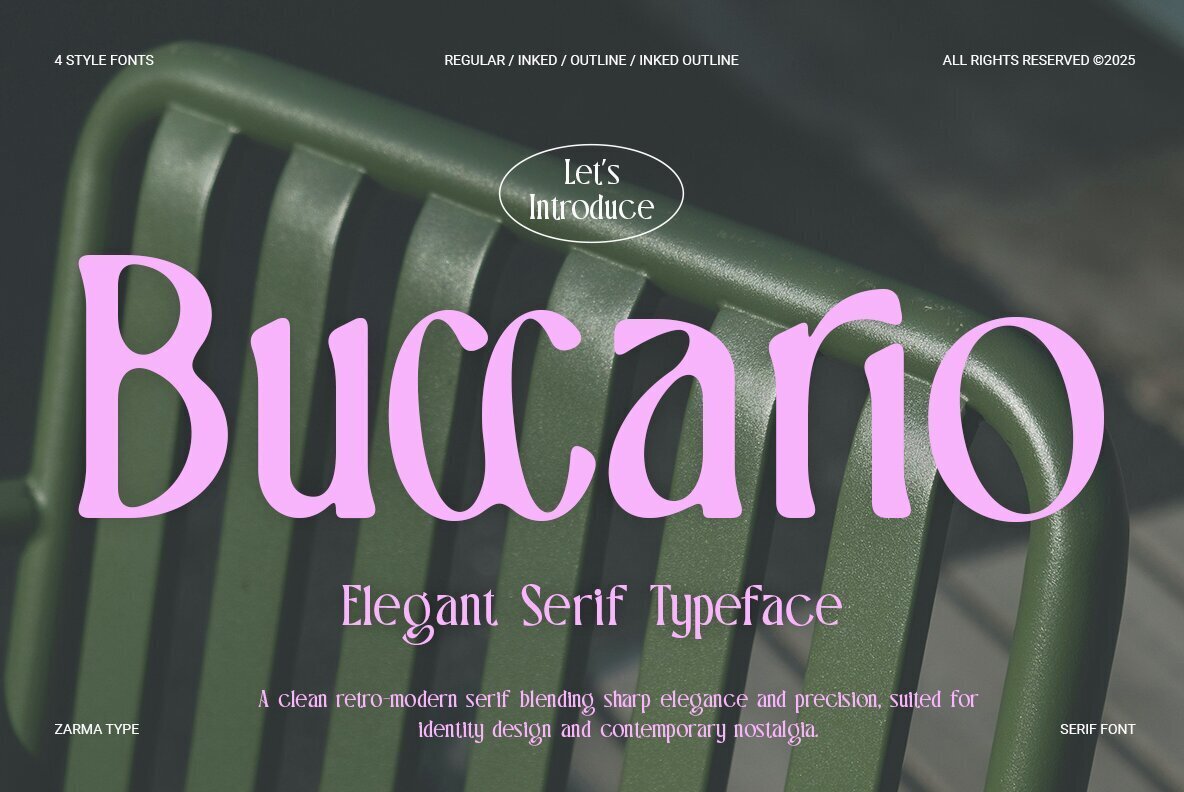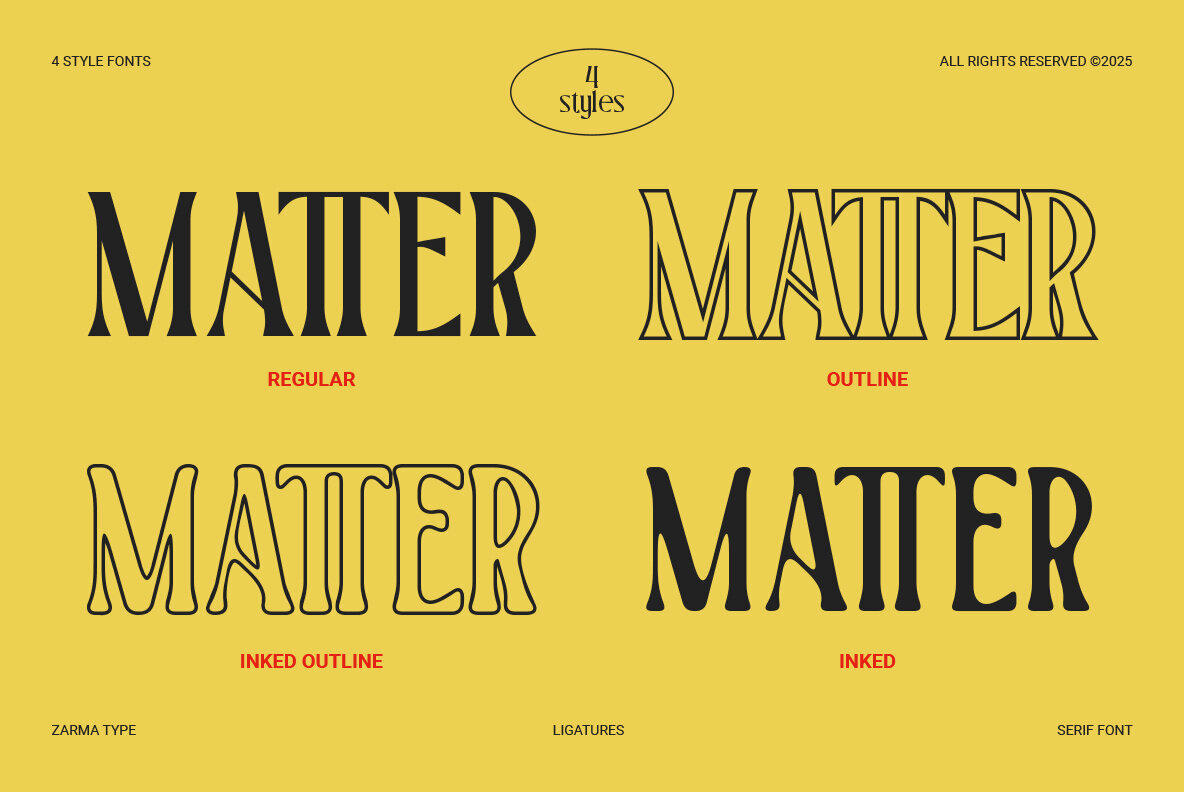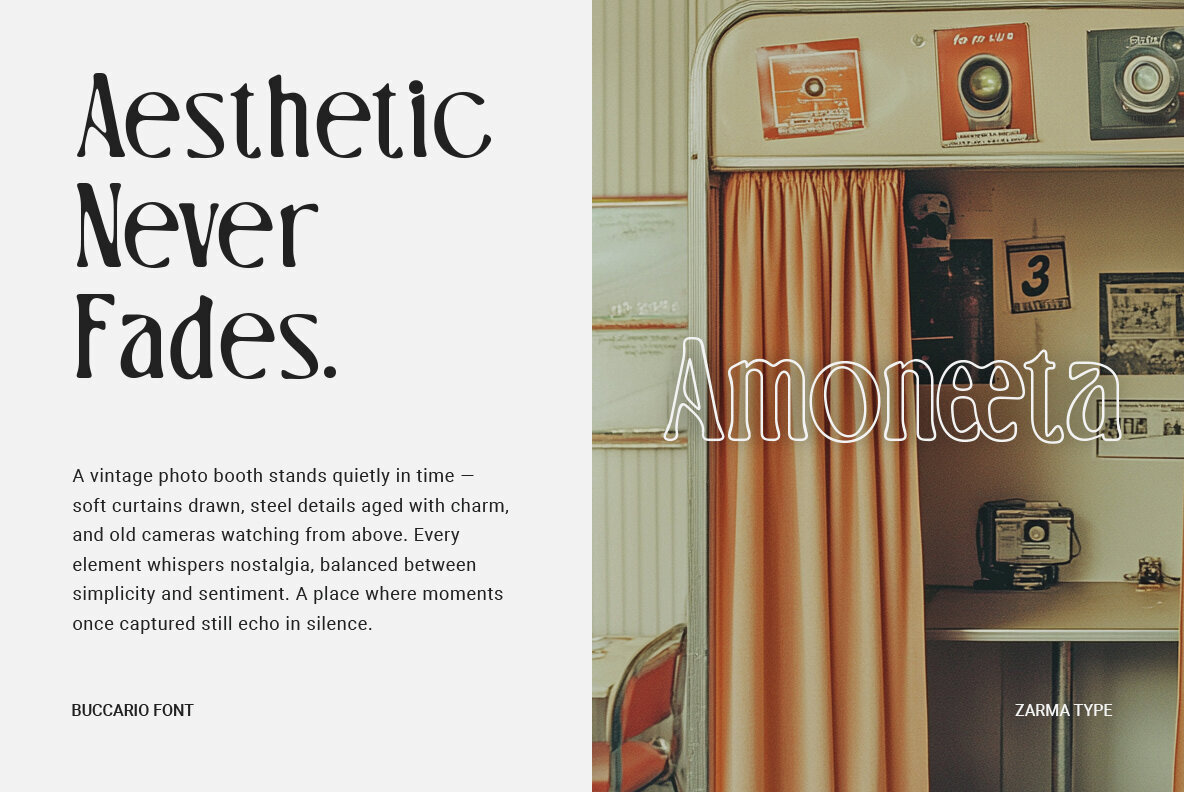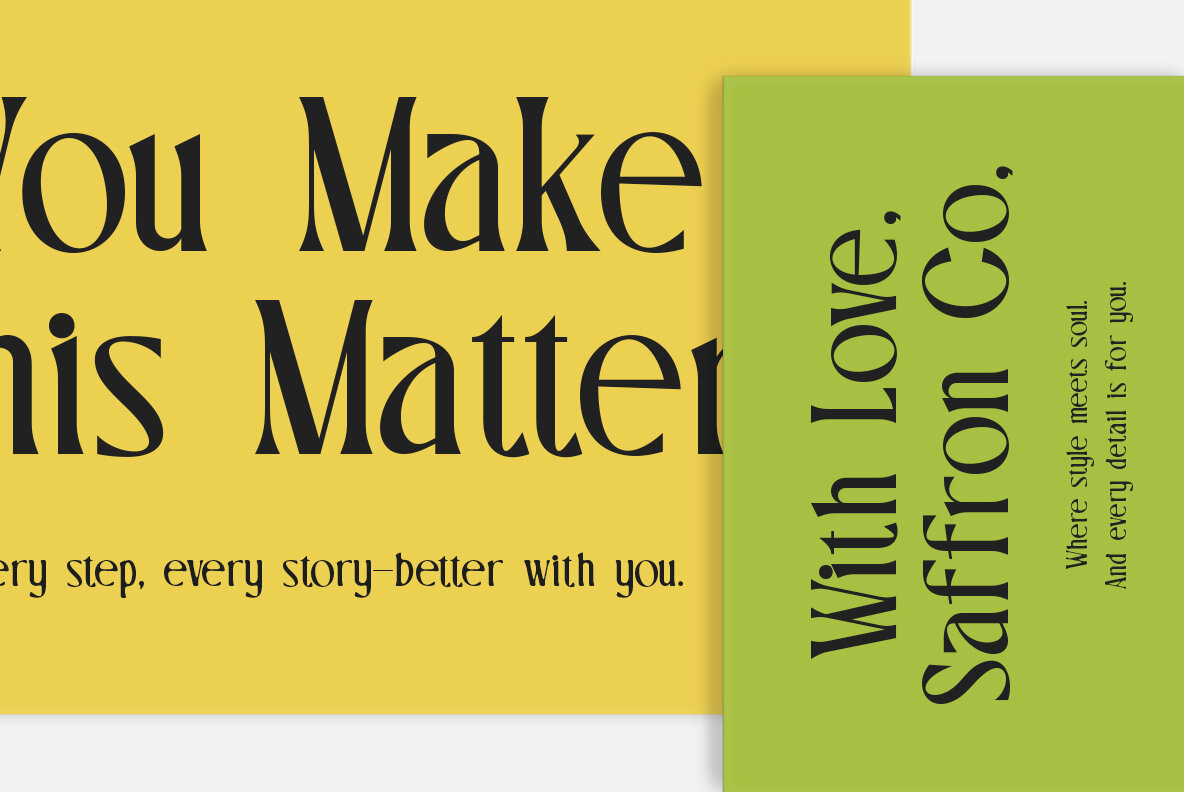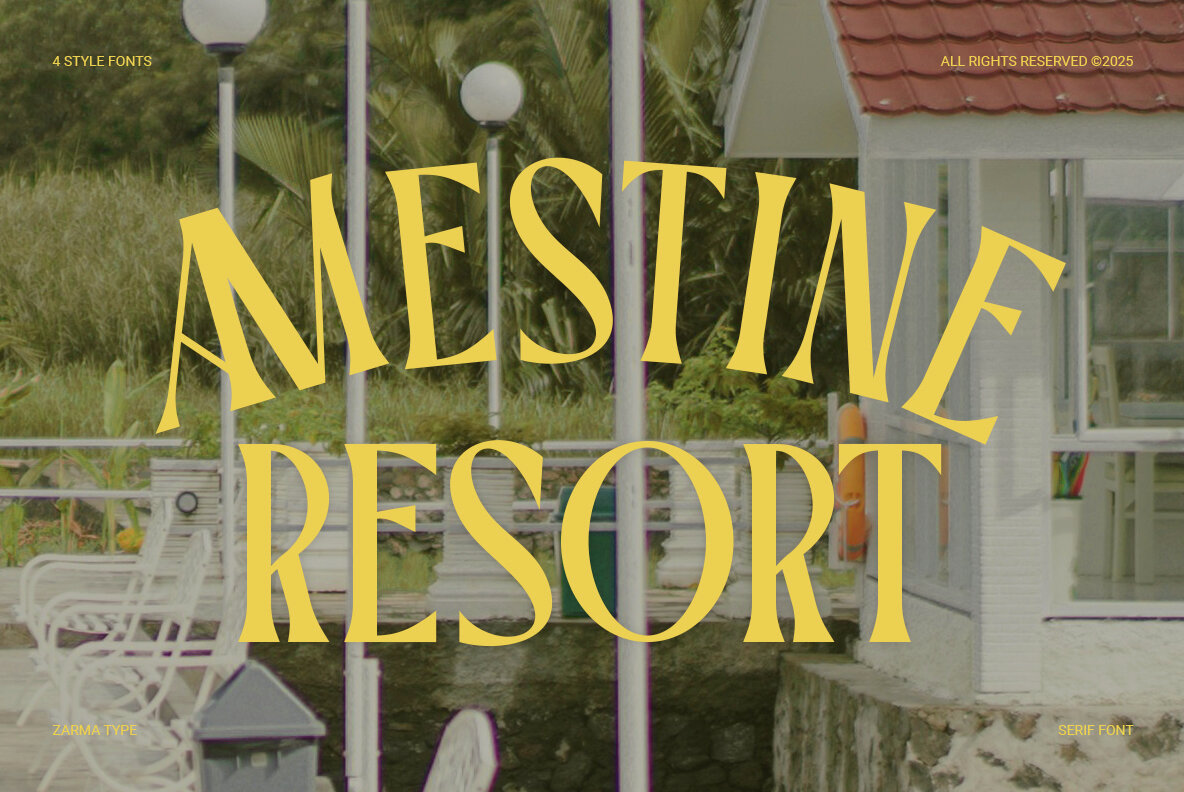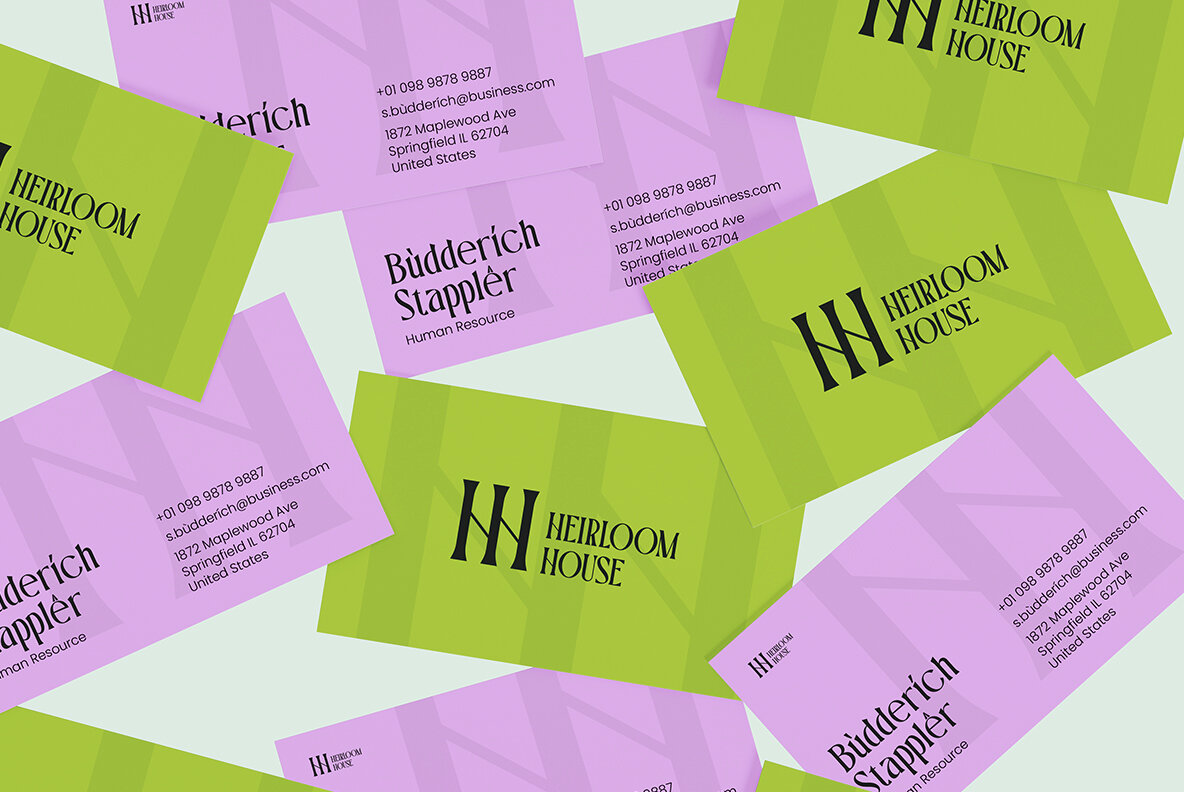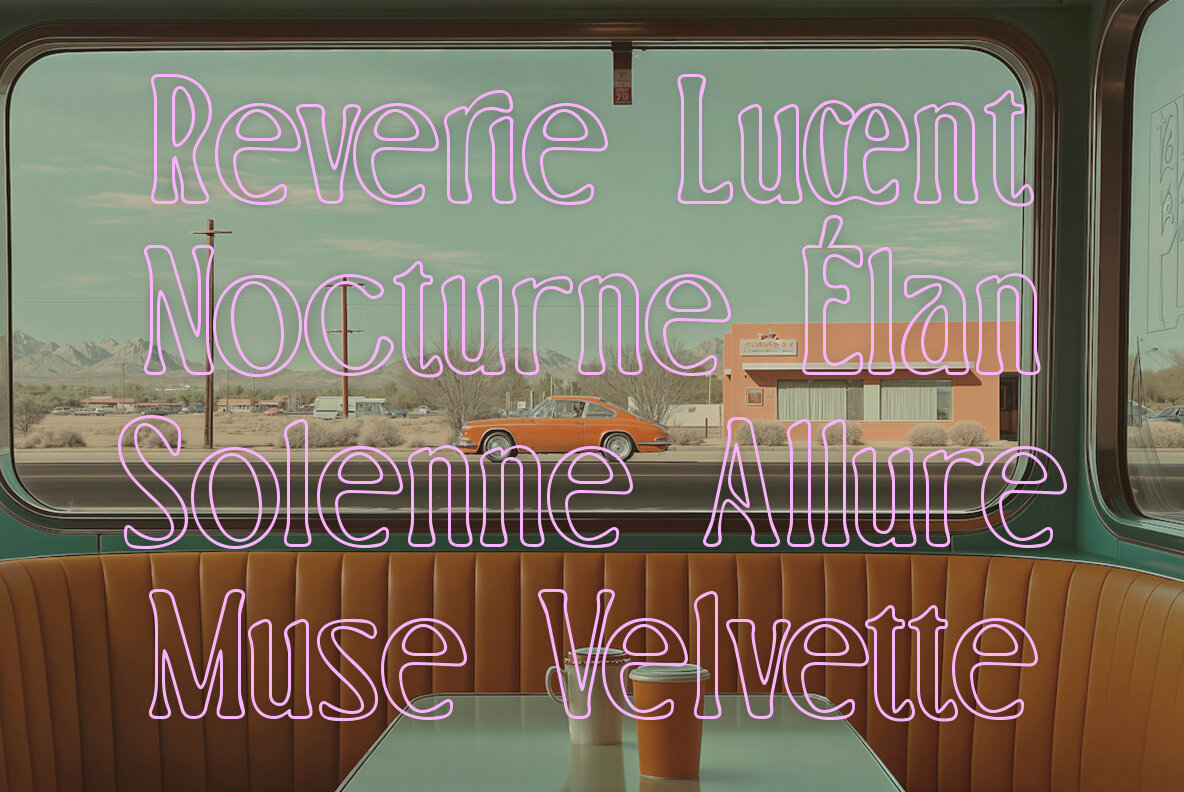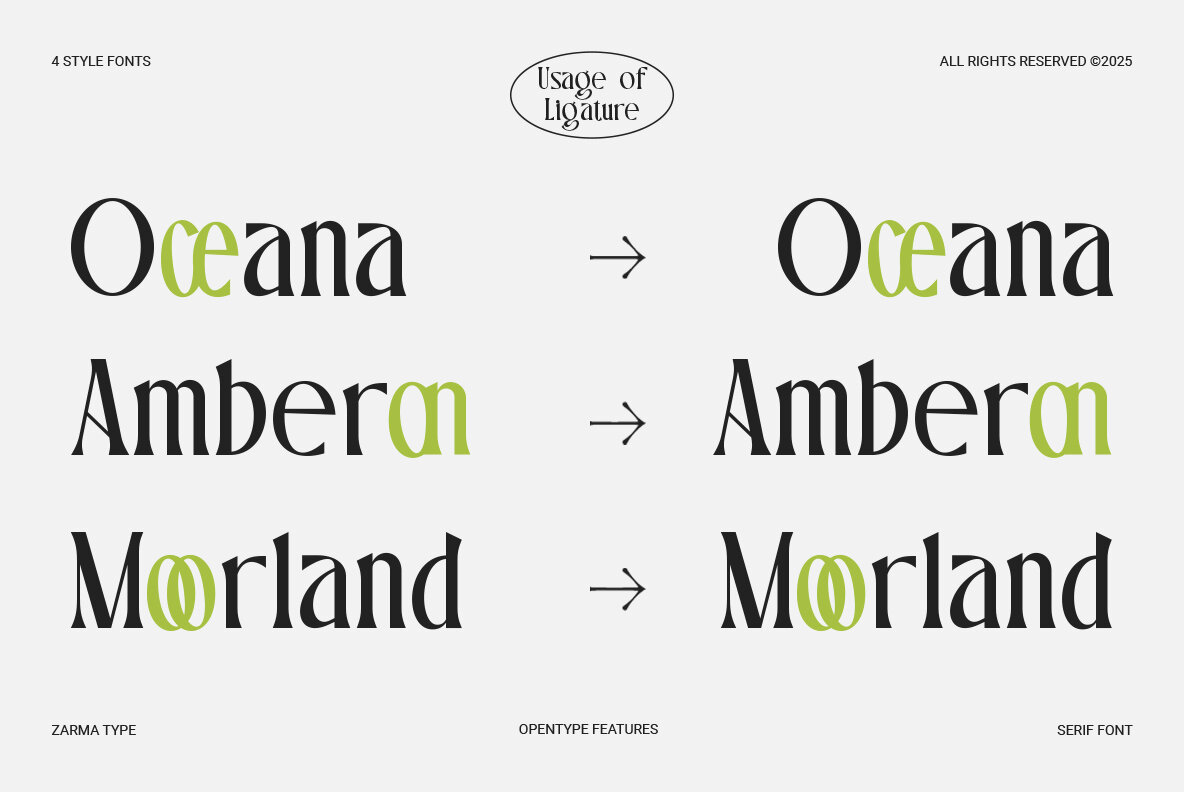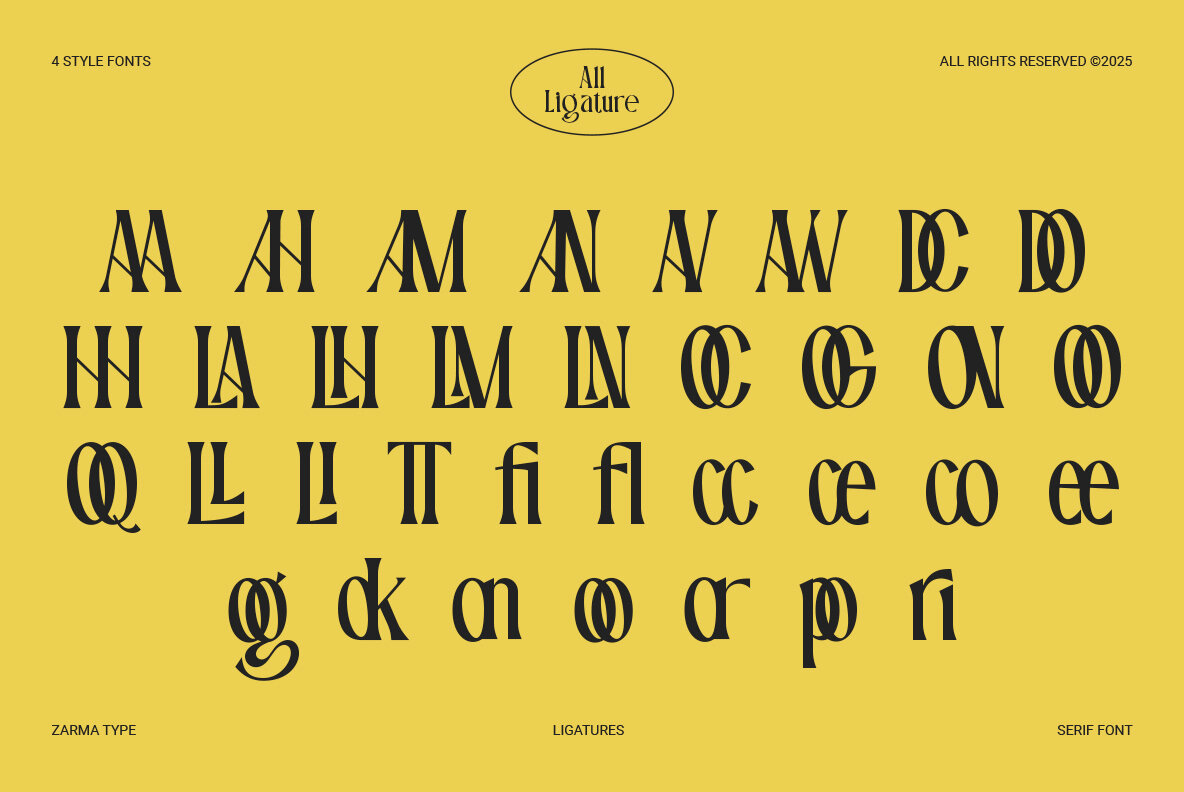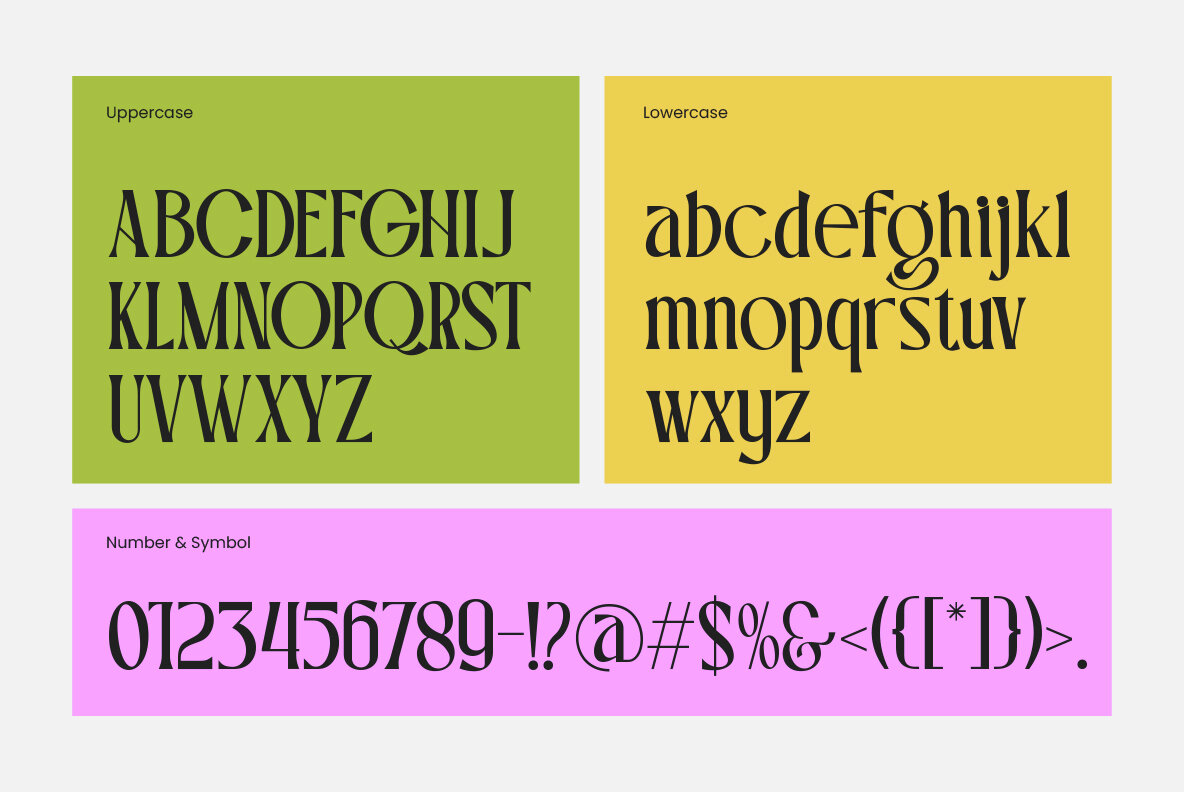
Buccario Font
Buccario Regular
Buccario Regular Outline
Buccario Inked
Buccario Inked Outline
Buccario brings a retro-modern flair to any design with its reversed contrast and refined curves, tailored for display typography and brand applications. This font exudes a stylish charisma and strong personality, making it a fitting choice for projects that balance elegance with boldness. With an array of OpenType features, comprehensive multilingual support, and decorative ligatures, Buccario provides significant design flexibility. It is a valuable asset for designers aiming to infuse vintage-inspired sophistication into contemporary layouts.Buccario: Distinctive Serif Font with Retro Charm